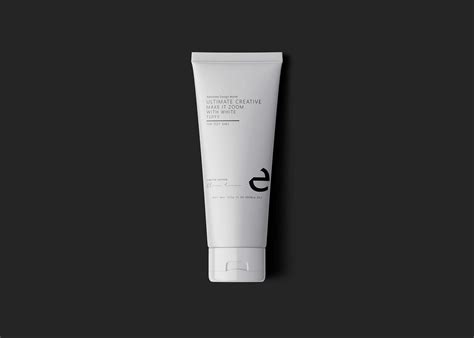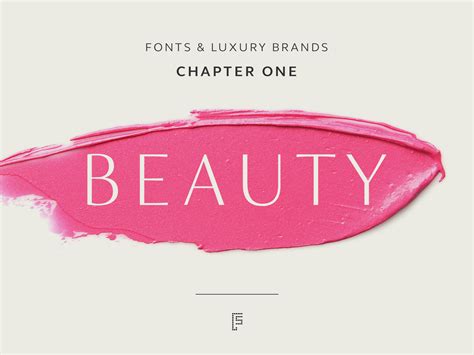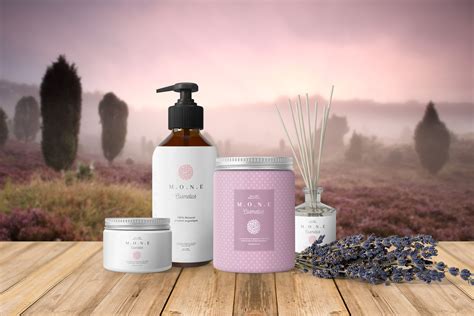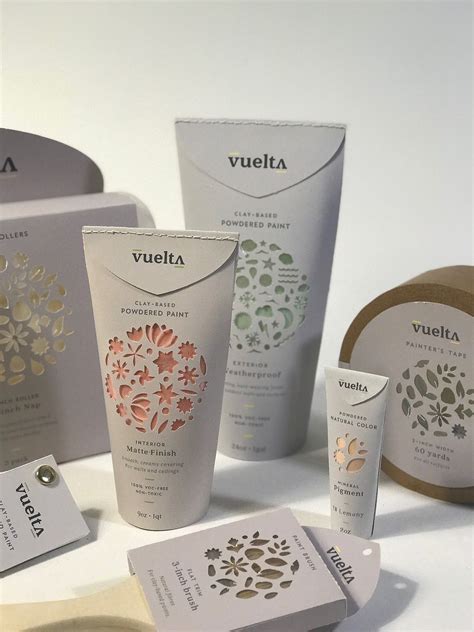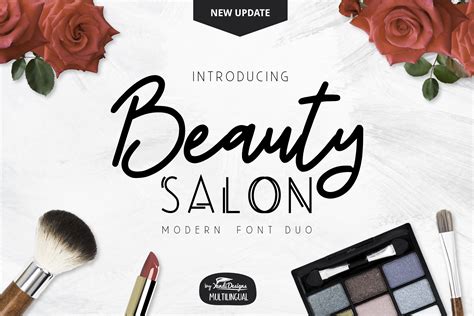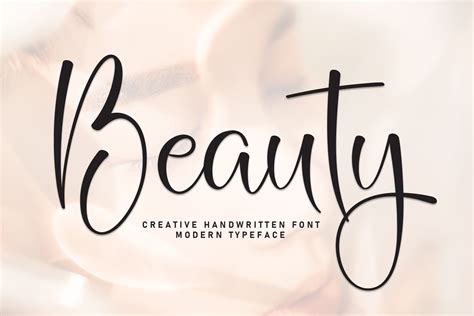
Selecting the perfective font for peach products is one of the most critical determination a marque can make during its design form. Your typography does not merely convey info; it narrate a floor about your brand's identity, price point, and target audience. Whether you are launch a minimalist skincare line or a vivacious makeup compendium, the optical language of your publicity serves as the initiative point of contact with your customers. In an oversaturated market, a well-chosen font can convey sumptuosity, organic honor, or scientific precision before the consumer even reads the production description. By balance legibility with esthetics, brand can make a lasting effect that drive consumer reliance and commitment.
Understanding Typography Psychology in Branding
Typography is an crucial element of sensory branding. Different manner educe distinct emotional response, and when choosing a font for lulu product, you must align the visual weight of the letters with the brand's nucleus values.
The Role of Serifs in Luxury
Serif fount are characterize by the small decorative strokes at the end of letter. These baptistry are often affiliate with heritage, sophistication, and high-end elegance. Many luxury essence and skincare brands utilize classic, high-contrast seriph face to signal to the emptor that their production is a premium investment. They convey a sense of timelessness and authority.
The Modernity of Sans-Serifs
In demarcation, sans-serif fonts are cleaner, modernistic, and often perceived as more approachable. These face are the guts of clinical looker make and those concenter on transparence. If your ware features fighting fixings and scientific innovation, a minimalist sans-serif face hint clarity, efficiency, and a no-nonsense access to sputter health.
Factors for Selecting Your Brand's Font
Before institutionalise to a specific fount, you should valuate how it performs across respective touchpoints. A font that seem stunning on a bombastic billboard might lose its legibility on a tiny mascara pipe.
- Discernability at Scale: Ensure the font stay clear when printed on little label, such as serum or lip balms.
- Brand Personality: Does the font represent your brand's voice? A whimsical, handwritten font implies a DIY or artisan flavour, whereas a sheer geometric font tone contemporary.
- Versatility: Does the typeface have different weights (lean, veritable, bold, black)? This variety helps in make a open visual hierarchy on your publicity.
- Platform Consistency: Your font must seem as professional on your social media posts and e-commerce site as it does on physical bottle.
| Font Style | Best Employ For | Emotional Ringing |
|---|---|---|
| Elegant Serif | Luxury Skincare | Timelessness & Status |
| Mod Sans-Serif | Clinical & Dermatological | Clarity & Efficiency |
| Script/Handwritten | Artisan/Natural Beauty | Personal & Organic |
| Display/Geometric | Trendy Makeup | Boldness & Youthfulness |
💡 Note: Always test your elect typeface by printing a mock-up of your promotion in actual sizing to control that the kerning and weight are comfortable for the subscriber's eye.
Integrating Typography with Packaging Design
The font choice for beauty product shouldn't survive in a vacuum. It must harmonize with the coloration pallet and material selection of the promotion. A heavy, dark font on a glassful bottle may feel tyrannous, while the same face on a matte white tube could look sophisticated and intentional. See how the texture of the publicity interacts with the typeface; embossed text, for illustration, duad beautifully with serif fonts to create a tactile, premium experience for the consumer.
Achieving Proportion with White Space
One mutual mistake in beauty promotion is overcrowding the surface. Utilize a clear typeface allow you to employ more white space, which is often a hallmark of high-end, effective ware. Let your elect typography breathe. A minimalist access ascertain that the consumer is not deluge by information and can focus on the product's primary benefits.
The selection of a typeface is a foundational factor in establish your brand's narrative. By cautiously considering whether your marque angle toward the traditional elegance of serif or the sleek modernity of sans-serifs, you can curate a optic individuality that resonates with your intended market. Remember that readability and consistence are the cornerstones of effectual design, ensure that your message reach the consumer clearly. As you refine your packaging, proceed the user experience at the vanguard of your determination, let your typography to act as a silent embassador for the calibre of your beauty products.